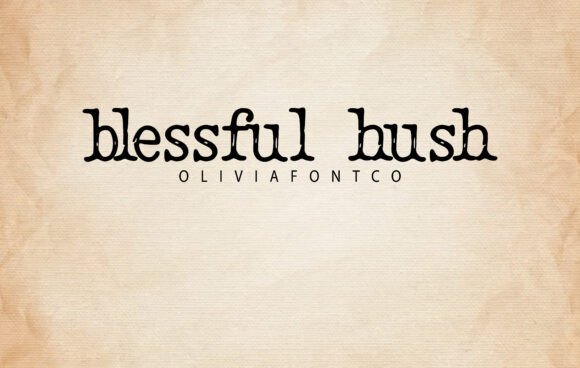
Blessful Hush Font: Elevate Your Creative Projects with Elegance and Legibility
In the world of typography, fonts play a crucial role in conveying messages, evoking emotions, and creating lasting impressions. Among the myriad of fonts available, the Blessful Hush Font stands out as a versatile and sophisticated typeface, designed to be a true favorite among designers, artists, and creative enthusiasts. This font is meticulously crafted to take your creative ideas to the highest level, offering a perfect blend of elegance, legibility, and versatility.
Unleash Your Creativity with Blessful Hush Font
The Blessful Hush Font is engineered to be a go-to choice for a wide range of design projects. Whether you’re working on magazine headlines, t-shirts, social media graphics, branding materials, wedding invitations, or cards, this font is poised to become your trusted companion. Its unique design ensures that it looks great not only as a title but also as body text, making it an ideal choice for projects that require both aesthetic appeal and readability.
Key Features of Blessful Hush Font
- Legibility: One of the standout features of the Blessful Hush Font is its exceptional legibility. In an era where digital media dominates, ensuring that your message is clear and easily readable across various platforms is paramount. This font guarantees that your text is not only beautiful but also easily comprehensible.
- Versatility: The Blessful Hush Font is incredibly versatile, making it suitable for a multitude of design projects. From the grandeur of magazine headlines to the intimacy of wedding invitations, this font adapts seamlessly, ensuring that your designs always look cohesive and professionally crafted.
- Elegance: Elegance is at the core of the Blessful Hush Font’s design. It brings a touch of sophistication to any project, elevating your designs from ordinary to extraordinary. This font is perfect for designers who aim to create a lasting impression through their work.
Applications of Blessful Hush Font
The applications of the Blessful Hush Font are vast and varied. Here are some of the areas where this font truly shines:
- Magazine Headlines: Create striking magazine headlines that capture attention and draw readers in. The Blessful Hush Font’s unique design makes it perfect for titles that need to stand out.
- T-Shirts and Merchandise: Design memorable t-shirts and merchandise that resonate with your audience. The font’s clarity and style ensure that your message looks great on any product.
- Social Media Graphics: Elevate your social media presence with graphics that are both engaging and professional. The Blessful Hush Font helps you create posts that stand out in a crowded digital landscape.
- Branding: Develop a strong brand identity with a font that communicates your message effectively. The Blessful Hush Font is ideal for logos, brochures, and other branding materials.
- Wedding Invitations and Cards: Add a touch of elegance to your wedding invitations, greeting cards, and other personal correspondence. This font’s sophistication makes it perfect for special occasions.
Why Choose Blessful Hush Font?
In a market flooded with fonts, the Blessful Hush Font distinguishes itself through its unique blend of style, legibility, and adaptability. Here are some reasons why you should consider choosing this font for your next project:
- Unique Design: The Blessful Hush Font boasts a distinctive design that sets it apart from more generic typefaces. Its elegance and charm make it an excellent choice for designers looking to add a personal touch to their work.
- Time-Saving: With the Blessful Hush Font, you can significantly reduce the time spent on selecting and testing different fonts. Its versatility means you can use it across various projects, streamlining your design process.
- Professional Results: Achieve professional-looking results with minimal effort. The Blessful Hush Font is designed to enhance your designs, ensuring they look polished and sophisticated.
The Blessful Hush Font is more than just a typeface; it’s a tool that can elevate your creative projects to new heights. Its combination of elegance, legibility, and versatility makes it an indispensable asset for designers and creatives. Whether you’re working on a commercial project or a personal endeavor, this font has the potential to transform your ideas into visually stunning realities. Embrace the Blessful Hush Font and discover a world of creative possibilities at your fingertips.